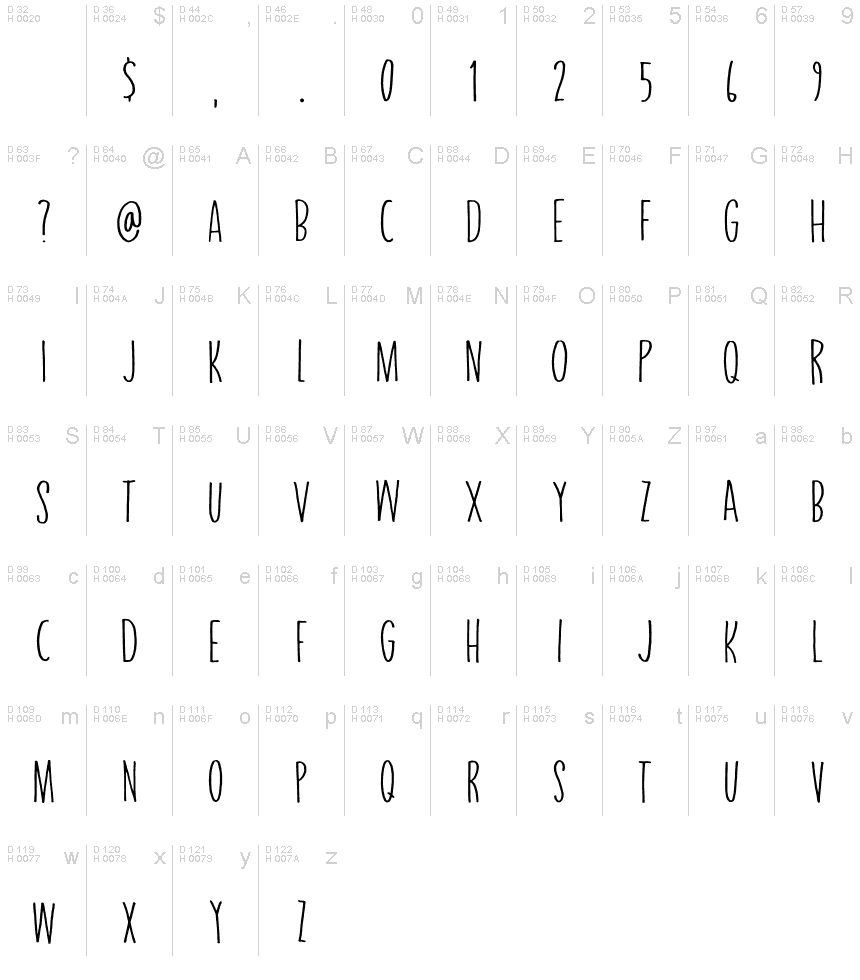
Take The Money DEMO Regular
Take The Money is a playful and unique handwritten font designed by D K. With its extra-light weight and extra-condensed width, this font is perfect for creating eye-catching titles, logos, or headlines in any design project. Its whimsical style adds a touch of creativity and personality to any design. Use it on anything from posters, flyers, and business cards to websites and social media graphics. Whether you're designing for a fun-loving brand or an imaginative event, Take The Money will make your message pop with its unconventional style.